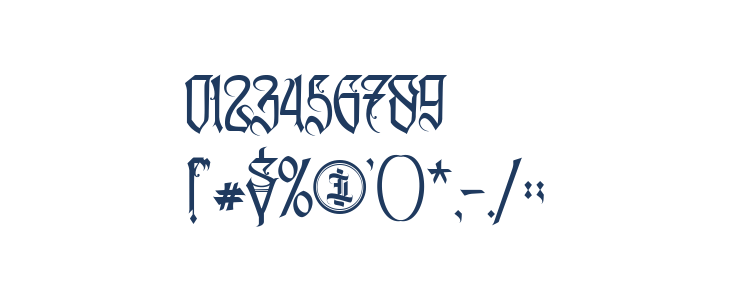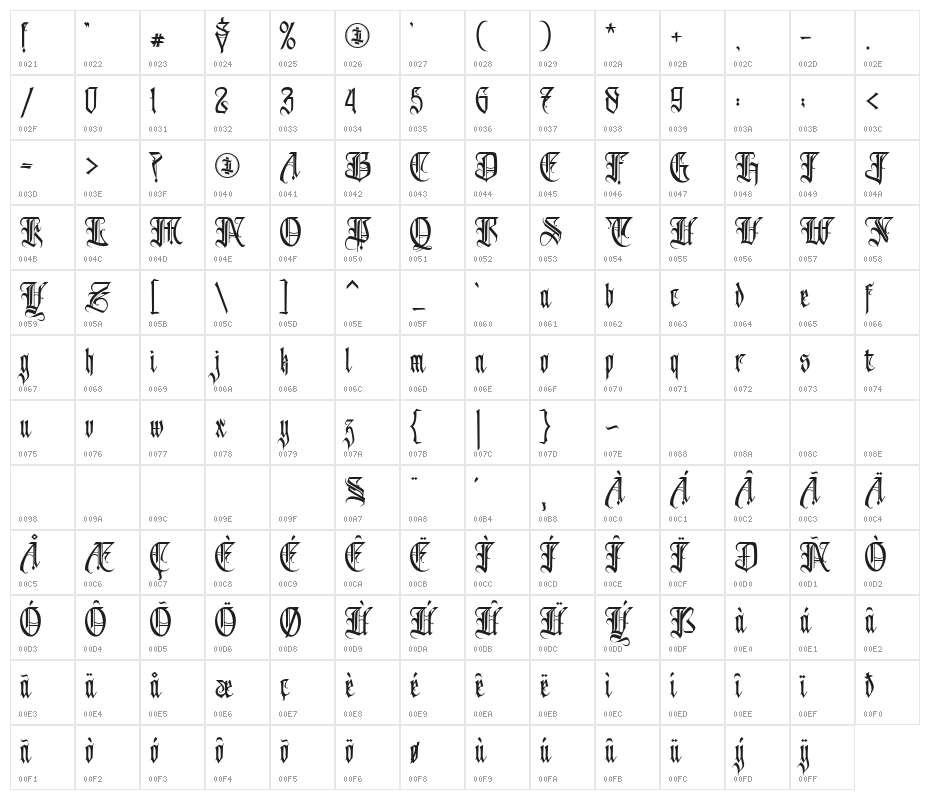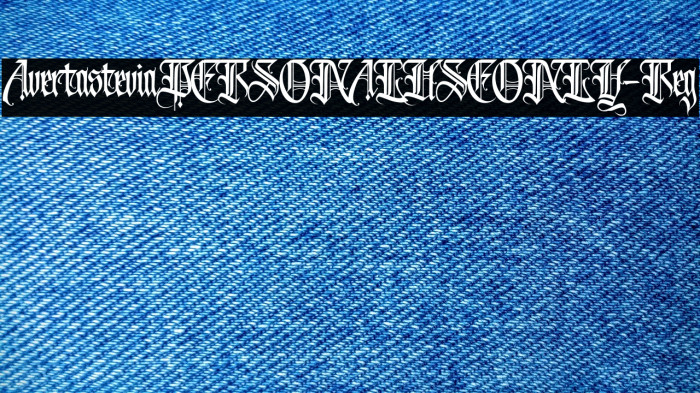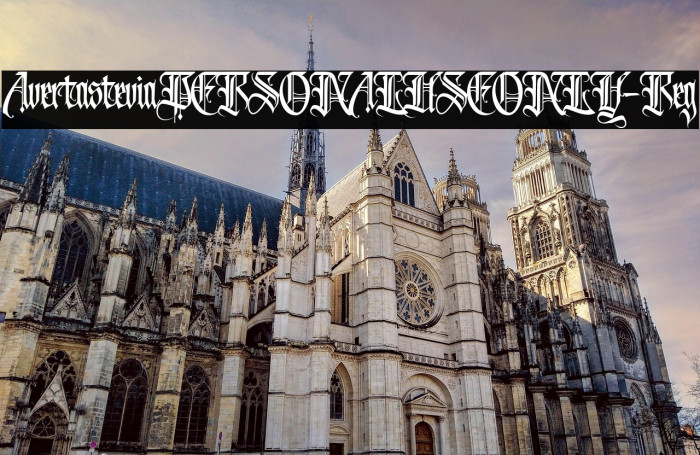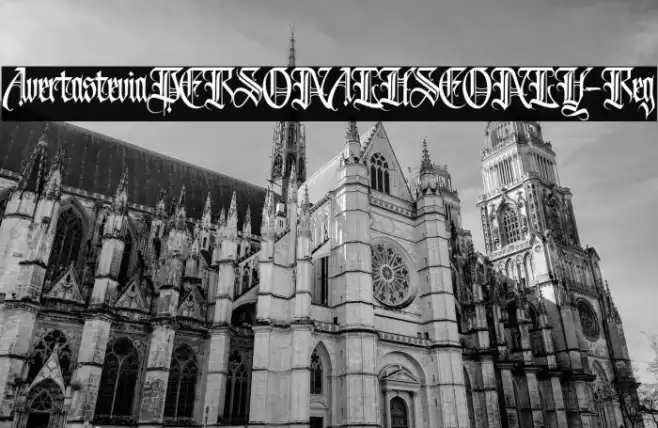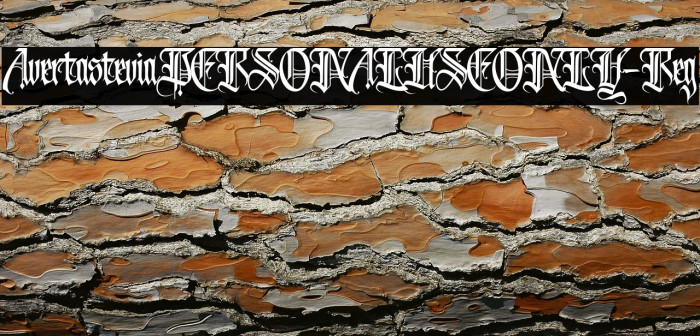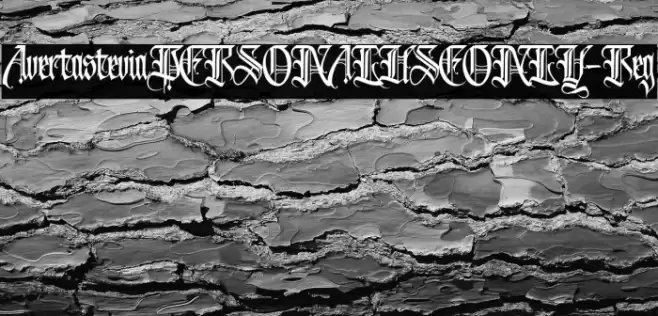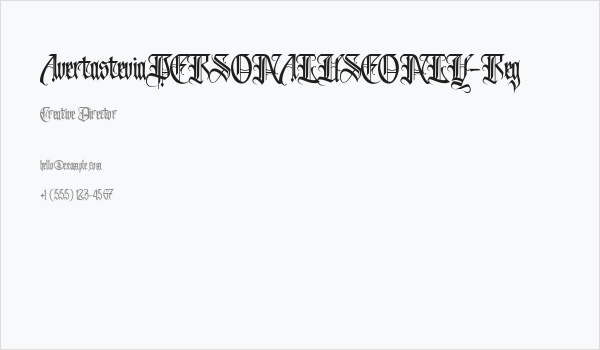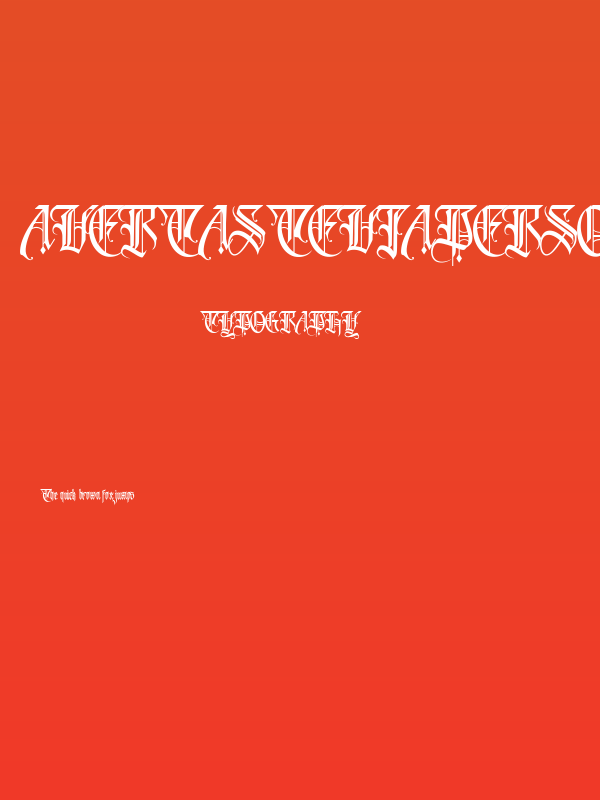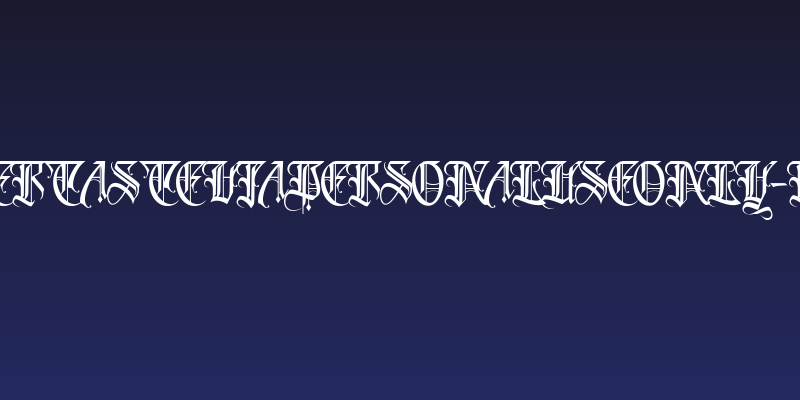
AvertasteviaPERSONALUSEONLY-Reg Font
AvertasteviaPERSONALUSEONLY-Reg Description
This font features an intricate and ornate design, reminiscent of traditional Gothic or Blackletter styles. The characters are highly decorative, with elaborate flourishes and sharp, angular lines that give it a dramatic and bold appearance. The uppercase letters are particularly striking, with their exaggerated serifs and complex detailing. The lowercase letters maintain the same level of intricacy, ensuring consistency throughout the typeface. Numbers and special characters are equally ornate, making this font suitable for projects that require a historical or medieval aesthetic. Its unique style makes it stand out, but it may not be suitable for body text due to its complexity.